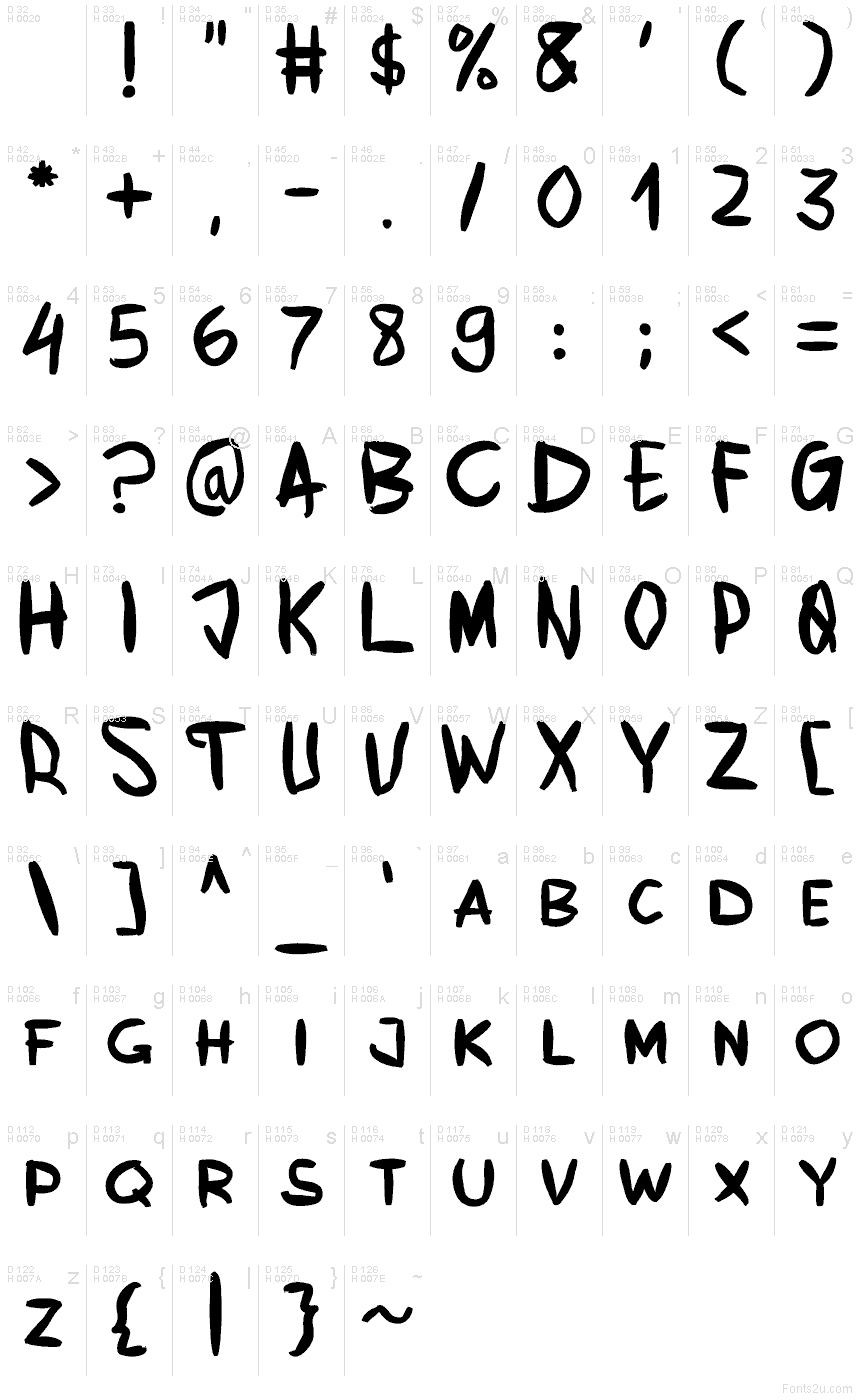
Don't Lebay
Don't Lebay font by Graphicfresh is a free handwritten font with a hand-drawn appearance and an expressive character. Slight irregularities give this an artistic impression that makes readings memorable and enjoyable. The style is casual while the overall feel of texts looks modern.
Use it for book covers, clothing, food packaging, banners, company taglines or whatever texts you may have. A simply beautiful typeface to be used absolutely everywhere if this fits your brand’s language.